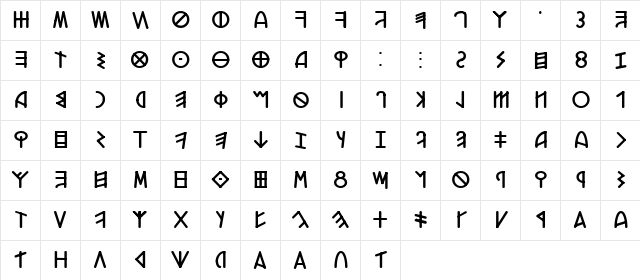
etruscotutto plain
Design Context for etruscotutto Typeface
etruscotutto offers clean, dependable letterforms without strong stylistic allegiance, making it a practical choice for designers who need flexibility.